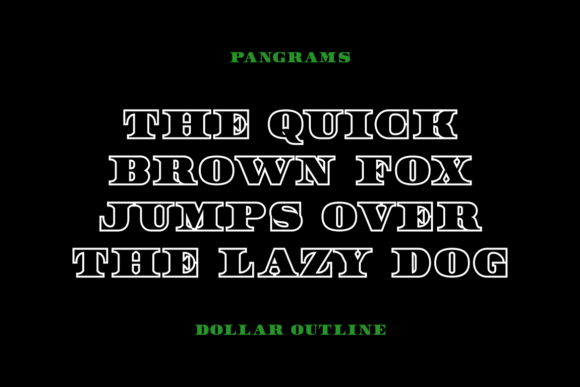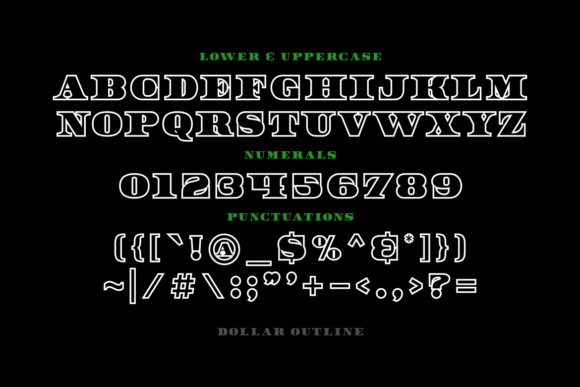
Introduction to Dollar Outline Font
Imagine you’re working on a project, and you need that perfect touch to make it stand out from the crowd. You’re browsing through your design resources, searching for the ideal font to match your creative vision. And then, it hits you – the perfect combination of elegance and sophistication. Enter the Dollar Outline Font, a serif display font that’s sure to elevate your designs to the next level.
With its inspiration drawn from the classic banknotes, this font is a must-have in every designer’s library. Its high-quality design makes it perfect for vintage and classic designs, and its versatility ensures that it will be a valuable addition to any project. Whether you’re working on a free download or a paid project, the Dollar Outline Font is sure to deliver.
Key Features of Dollar Outline Font
- High-quality design: The Dollar Outline Font offers crisp and clear characters, perfect for creative projects.
- Transparent background: The font features a transparent background, allowing for seamless integration with any design or image.
- Unique outline design: The font’s distinctive outline design makes it perfect for creating eye-catching graphics, logos, and titles.
Honest Review: Dollar Outline Font
I recently came across the Dollar Outline Font and was excited to give it a try. As a designer, I’m always on the lookout for new and interesting design resources to elevate my creative projects. One of the things that caught my eye about this font is its unique outline design, which makes it perfect for adding a touch of sophistication to any design.
- ✨ High-quality design: The Dollar Outline Font is well-designed and visually appealing, making it a great addition to any design project.
- ✨ Transparent background: The transparent background of this font makes it easy to layer and combine with other design elements.
- ⚠️ Limited character set: While the Dollar Outline Font is a great addition to any design project, it’s limited in terms of the number of characters it includes.
- ⚠️ Not suitable for body text: Due to its unique outline design, this font is not suitable for use as body text and is better suited for headlines and titles.
Overall, I’m impressed with the Dollar Outline Font and would recommend it to designers looking for a high-quality design resource to add some flair to their creative projects. While it has some limitations, its unique design and transparent background make it a valuable addition to any design arsenal.
Dollar Outline Font
The Dollar Outline Font is a versatile and free download design resource that can elevate your creative project to the next level. This high-quality font features a transparent background, making it perfect for a variety of design applications.
Tips for Getting the Most Out of the Dollar Outline Font
To get the most out of the Dollar Outline Font, try using it in combination with other design elements, such as icons and graphics. You can also experiment with different font sizes and colors to create a unique and eye-catching design.
The Dollar Outline Font is a versatile design resource that can be used in a variety of applications, including:
Infographics: The Dollar Outline Font is perfect for creating eye-catching infographics that showcase important data and information.
Marketing Materials: The Dollar Outline Font can be used to create professional-looking marketing materials, such as brochures and business cards.